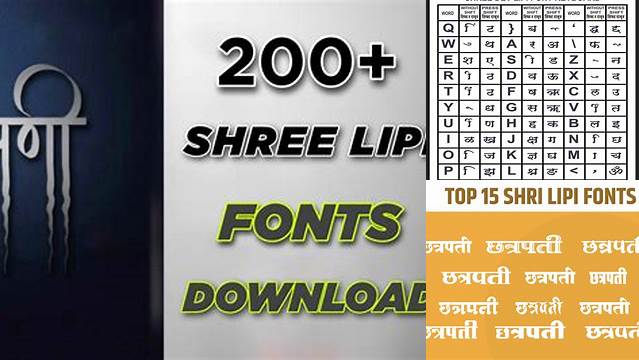
Shree Lipi Free Font: Your Ultimate Guide
Hey guys! Ever found yourself needing a fantastic font for your Marathi or Hindi documents but hitting a wall with licensing fees? Well, you're in the right place! We're diving deep into the world of Shree Lipi free fonts, exploring everything from where to find them to how to use them effectively. Let's get started and unlock the beauty of Indic scripts without breaking the bank!
What is Shree Lipi?
Before we jump into the free fonts, let's understand what Shree Lipi actually is. Shree Lipi is a widely used font software package, particularly popular for typesetting in Indian languages like Marathi, Hindi, and others. It's known for its extensive character set and high-quality rendering, making it a go-to choice for publishers, designers, and anyone working with Indic scripts. Shree Lipi has been a cornerstone in the world of Indian language typesetting for decades, offering a vast library of fonts that capture the nuances and elegance of these languages. Its importance in preserving and promoting these scripts through technology cannot be overstated. The software's popularity stems from its ability to handle complex character combinations and ligatures, ensuring that the text is both legible and aesthetically pleasing. This makes it an indispensable tool for creating professional-looking documents, publications, and other materials in Indian languages.
The Importance of Shree Lipi in Indian Language Typography
Shree Lipi plays a crucial role in preserving and promoting Indian languages in the digital age. Its comprehensive support for various Indic scripts ensures that these languages remain vibrant and accessible in print and digital media. The software's ability to accurately render complex characters and ligatures is particularly important for maintaining the integrity and beauty of these scripts. Without tools like Shree Lipi, it would be significantly more challenging to produce high-quality documents and publications in Indian languages. This, in turn, would hinder efforts to promote literacy and cultural heritage. By providing a reliable and versatile platform for typesetting, Shree Lipi empowers individuals and organizations to create engaging and informative content in their native languages. This fosters a sense of pride and encourages the continued use and development of these languages.
Shree Lipi's Role in Digital Publishing
In the world of digital publishing, Shree Lipi is an invaluable asset. It enables publishers to produce high-quality e-books, magazines, and other digital content in Indian languages. The software's compatibility with various publishing platforms and formats ensures that the text is displayed correctly across different devices and screens. This is essential for providing a seamless reading experience for users. Moreover, Shree Lipi's advanced features, such as kerning and tracking, allow publishers to fine-tune the typography for optimal readability and visual appeal. By leveraging these capabilities, publishers can create digital publications that are both informative and aesthetically pleasing. This contributes to the growth and accessibility of Indian language literature in the digital realm.
Why Look for Shree Lipi Free Fonts?
Where to Find Shree Lipi Free Fonts
Finding Shree Lipi free fonts requires a bit of digging, but it's totally doable! Here are some avenues to explore:
- Font Websites: Sites like Fontspace, DaFont, and Google Fonts (though Google Fonts might not have direct Shree Lipi equivalents, they offer excellent Devanagari options) often have sections dedicated to free fonts. Just be sure to double-check the license before using them! Look for fonts that support the Devanagari script, which is used for Hindi and Marathi.
- Open Source Projects: Some open-source projects might offer fonts that are similar in style to Shree Lipi. Keep an eye out for these!
- Online Forums and Communities: Check online forums and communities dedicated to typography and Indian languages. Members often share free resources and recommendations.
Exploring Font Websites for Free Options
Font websites are a great starting point when searching for Shree Lipi free fonts. Many of these sites offer a wide variety of fonts, including those that support Indian languages. However, it's essential to exercise caution and verify the licensing terms before downloading and using any font. Look for fonts that are explicitly labeled as "free for commercial use" if you plan to use them in your business or professional projects. Additionally, be wary of websites that offer fonts from unknown or unverified sources, as these may contain malware or other security risks. Reputable font websites typically have clear licensing information and allow users to preview the font before downloading. By taking these precautions, you can safely explore the vast collection of Shree Lipi free fonts available online.
Conclusion: Embracing Free Fonts Responsibly
Using Shree Lipi free fonts can be a fantastic way to create beautiful and effective designs without breaking the bank. By following the tips and guidelines outlined in this guide, you can navigate the world of free fonts with confidence and create stunning visuals that showcase the beauty of Indic scripts. Just remember to be responsible, respect licensing agreements, and always prioritize quality over cost. Happy font hunting, guys!